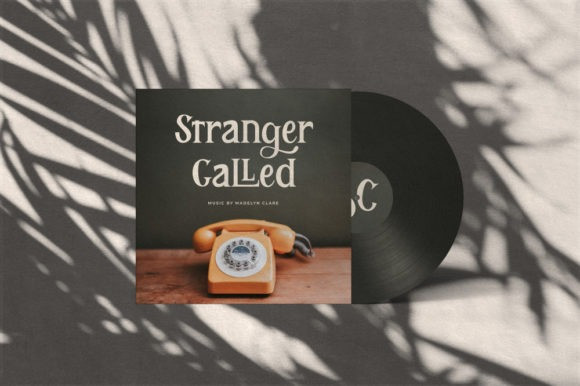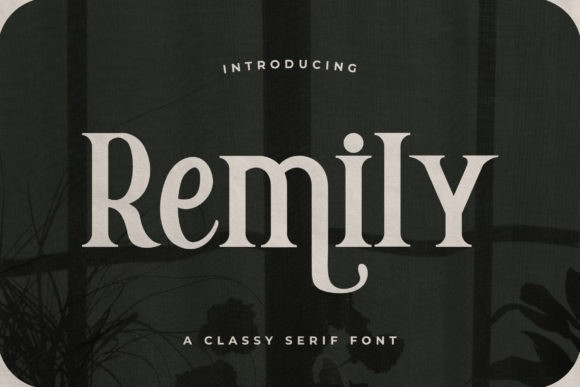
Remily Font
Remily Serif Font is an assertive, classy and uniquely shaped serif font. This font is PUA encoded which means you can access all of the glyphs and swashes with ease!
Fall in love with its incredibly versatile style and use it to create spectacular designs!